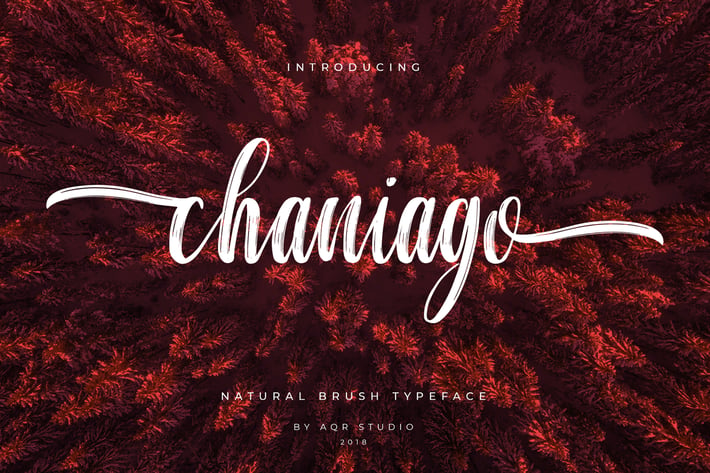
Chaniago Natural Brush Typeface
Fresh!!! Natural Brush typeface suitable for any design : Branding, Logotype, Writting , T-shirts, Mug design, Wedding Design and any design what you want.
chaniago features with :
Basic Glyphs, Numerals, Symbol and punctuation
Swash, Stylistic Sets
Standard Ligatures